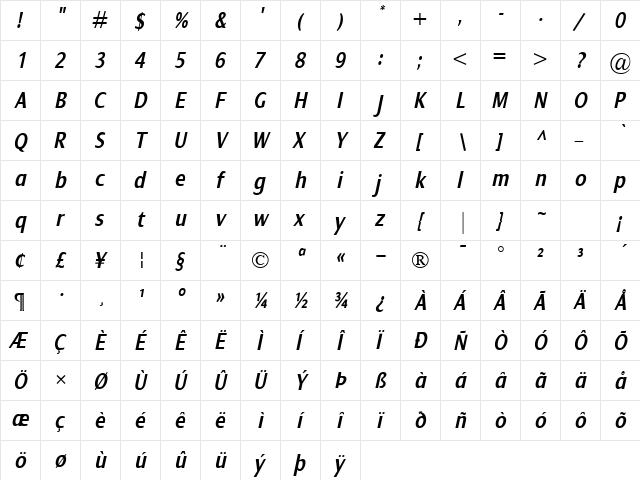
Dialog Cond SemiBold Italic Font Preview
Design Context for Dialog Cond SemiBold Typeface
Dialog Cond SemiBold offers clean, dependable letterforms without strong stylistic allegiance, making it a practical choice for designers who need flexibility. The slanted form adds forward momentum and visual energy. Its bold stroke weight gives it real presence on the page. The condensed width makes it efficient for tight spaces without sacrificing legibility.
Pro Tip: Try Dialog Cond SemiBold for annotation and caption copy alongside an upright companion — the contrast in angle creates a dynamic but ordered typographic system.